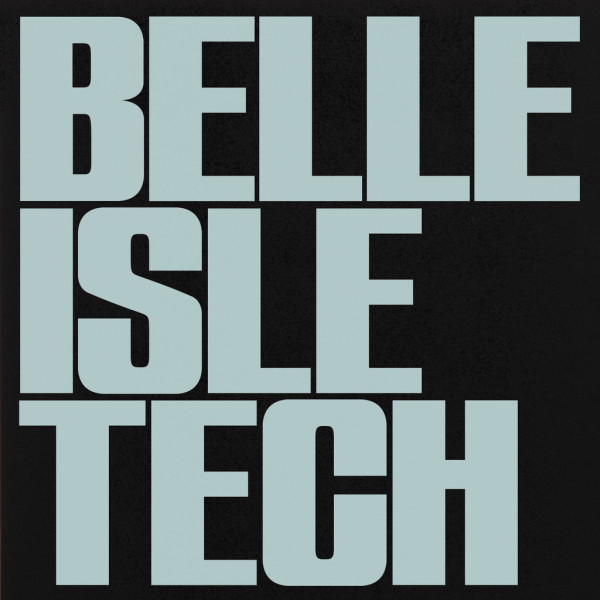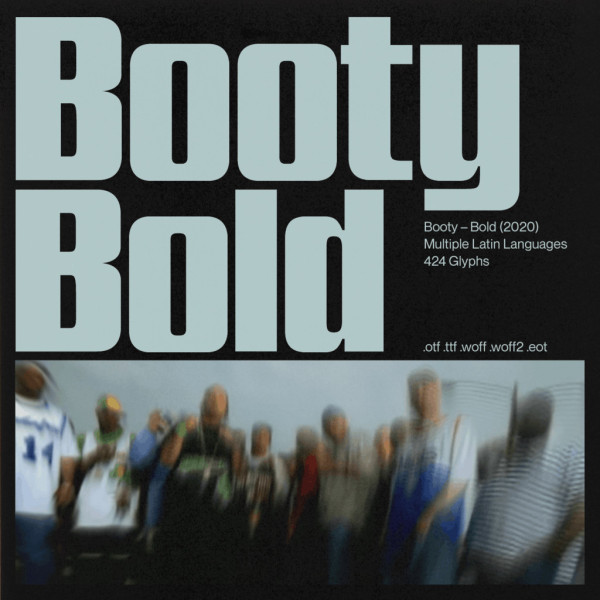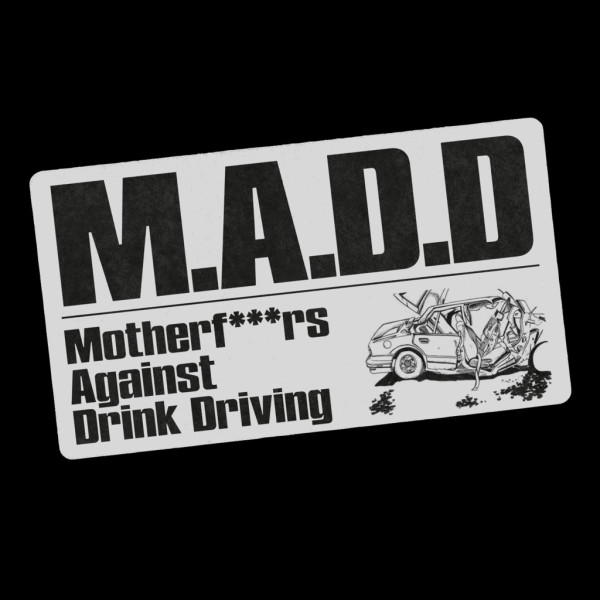
Booty Bold Font
Booty Bold Font, designed by Berlin-based designer Nat Brown, this slightly condensed sans-serif font is inspired by regional American club music and its intense obsession with large derrières. The uppercase and lowercase characters hold an almost consistent weight, giving the font a digital appearance comparable to mono-spaced typefaces. Nostalgic, yet futuristic. The font works best in larger sizes, think headlines, posters, and logotypes.